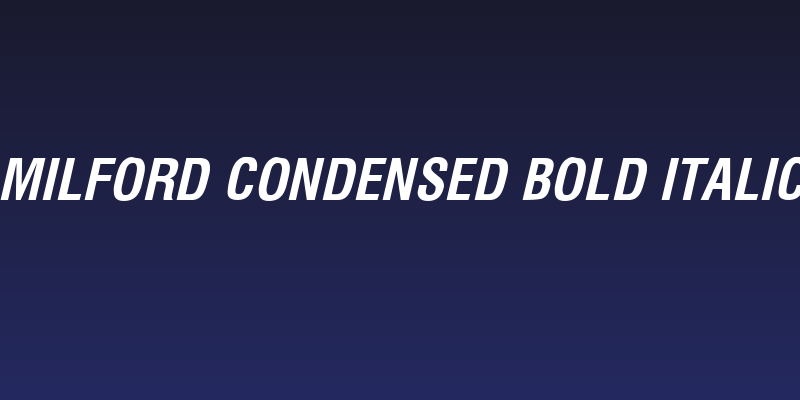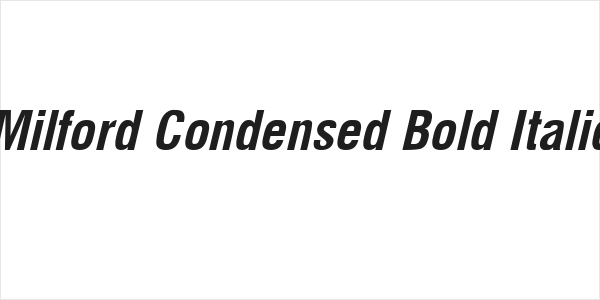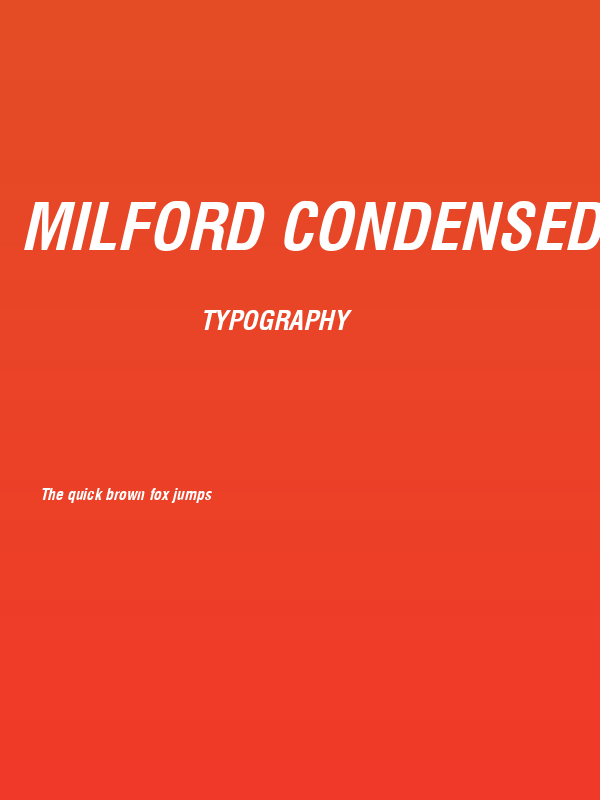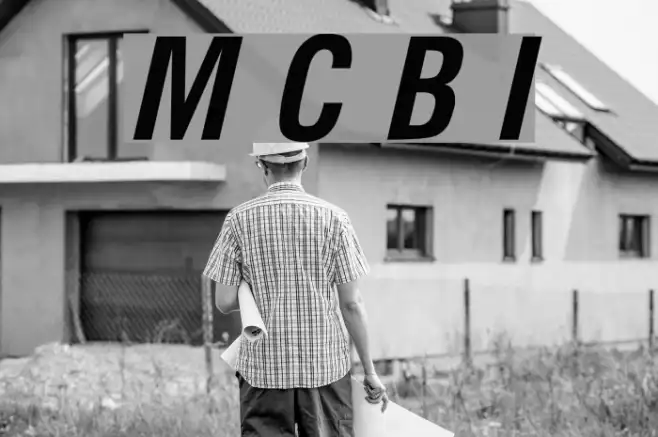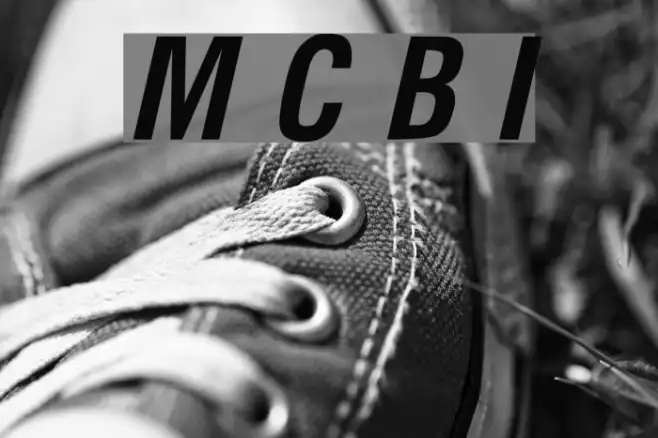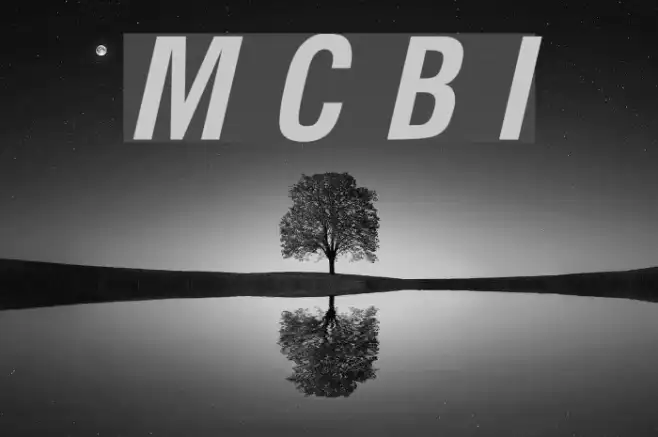
Milford Condensed Bold Italic Font
Milford Condensed Bold Italic Description
This font exhibits a bold and italicized style with a condensed width, giving it a strong and impactful presence. The characters are tightly spaced, enhancing its compact appearance. The strokes are consistent in thickness, providing a medium contrast that maintains readability while adding a dynamic flair. Its slanted design adds a sense of motion and urgency, making it suitable for attention-grabbing headlines or titles. The font's modern aesthetic is complemented by its clean lines and sharp edges, making it versatile for various design applications.
| Proposed Projects | Ideal for headlines, posters, advertisements, and branding materials that require a bold statement. |